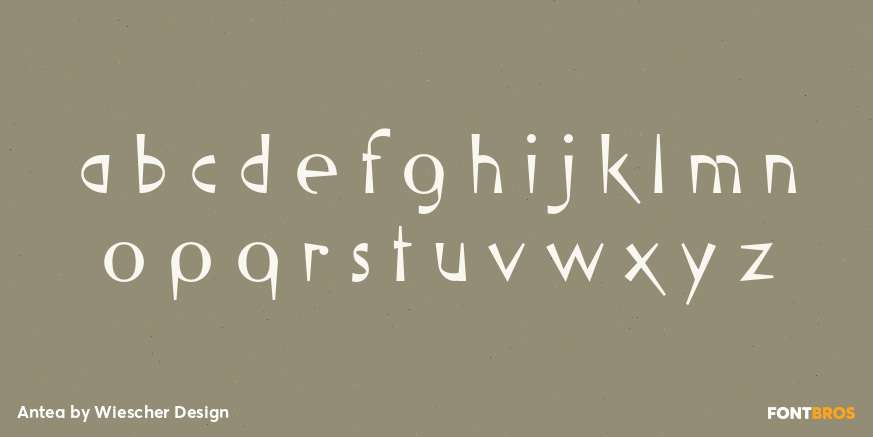
Antea
Font Family by Wiescher Design
Buy NowAntea is named after ?Antaeus? the giant of Libya in Greek mythology, son of Poseidon and Gaia (mother earth), whose wife was Tinjis. He was extremely strong if he stayed in contact with the earth, but once lifted into the air he became weak and liquid.
So is this font, strong if grounded and weak if floating in the air. I will in due course add different weights for different purposes.
Your designer of very mysterious fonts, Gert Wiescher